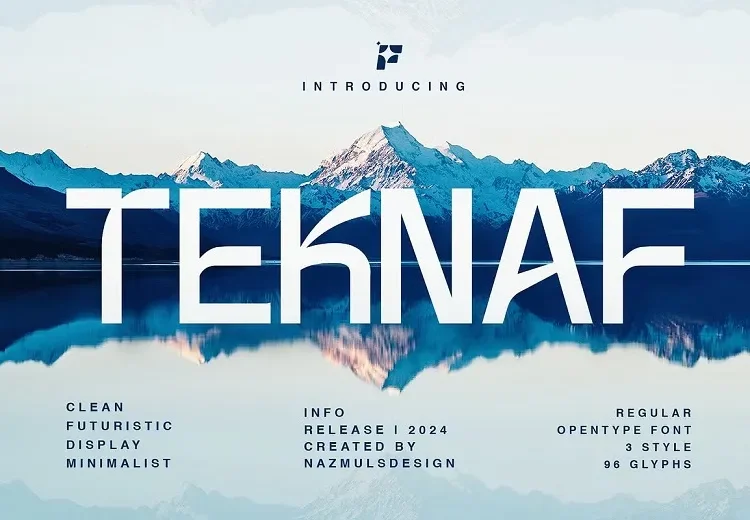
Teknaf Font
Teknaf is a clean and sophisticated sans serif font that embodies contemporary design trends. With its sleek lines and balanced proportions, Teknaf is designed to catch the eye and leave a lasting impact on any design project. This typeface is versatile, making it a great choice for both web and print, ensuring your work stands out with clarity and style.
Key Features
• Modern and Clean: Teknaf’s refined design aligns perfectly with current design aesthetics, making it a valuable addition to any modern project.
• Versatile Usage: Ideal for web design, branding, and print materials, Teknaf offers flexibility in its application, ensuring it meets the needs of various design tasks.
• Sophisticated Proportions: The font’s well-balanced proportions and delicate style add a touch of elegance, making it a must-have in any designer’s toolkit.
Ideal Uses
• Web Design: Teknaf’s clean lines and legibility make it perfect for use in digital projects, ensuring your text is easy to read and visually appealing.
• Branding: The font’s modern yet timeless style makes it an excellent choice for logos, business cards, and other branding materials that require a polished look.
• Print Materials: Whether it’s for brochures, posters, or other printed media, Teknaf ensures your designs are both sophisticated and impactful.